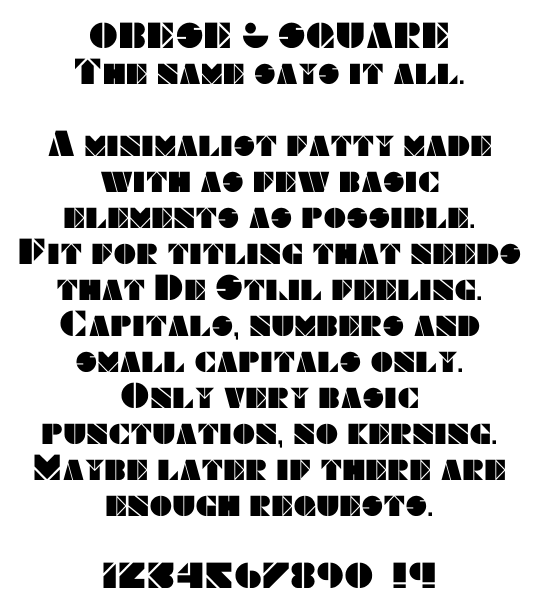
Obese & Square, the name says it all. A minimalist fatty made with as few basic elements as possible. Fit for titling that needs that 'De Stijl' feeling. Capitals,numbers and small capitals only. Only very basic punctuation, no kerning. Maybe later if there are enough requests. Redistribution of this font is not allowed without the written consent of the copyright holder, Koeiekat. Free for strictly private use only. Use for any other purpose, including web embedding requires a donation. Contact koeiekat at koeiekat.com. The @ :) Private use: Any use that is strictly private and not in any way related to commercial activities, not-for-profit included. Examples: A personal website or blog that does not contain advertisements or pay-per-click links, your school homework or course work, your own birthday or other invitations (made and printed by you), family scrapbooks and so on. Not private use: Any use that is not strictly private. Thus any use related to anything that has a commercial purpose, including non-profit. Examples: Business websites, portfolio websites, school websites, church websites, logos, business cards, letterheads, brochures, leaflets, posters, merchandise, t-shirts, books, magazines, retail packaging, advertising, TV broadcast and movie credits and so on. |